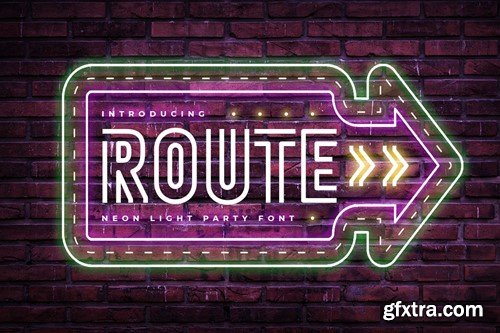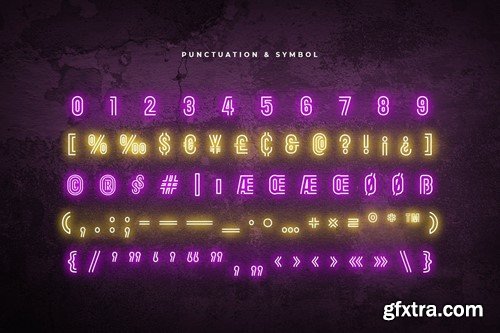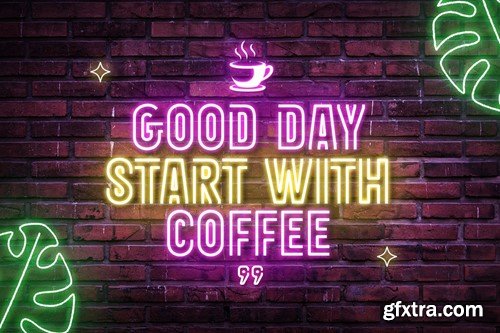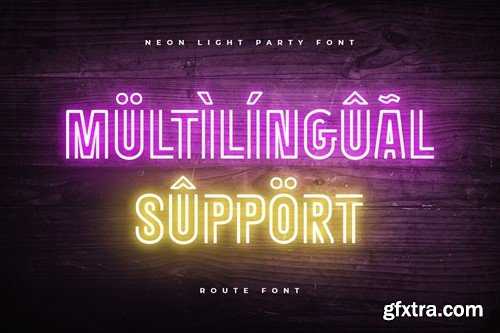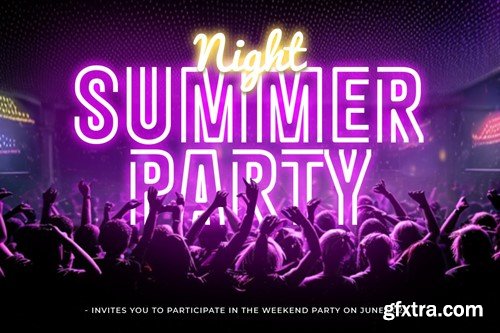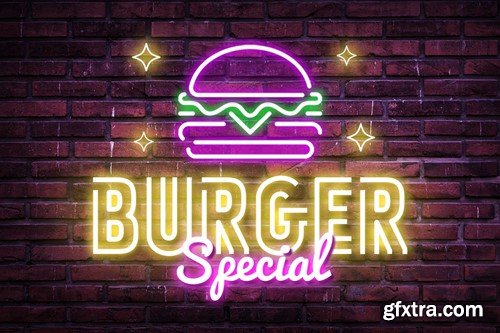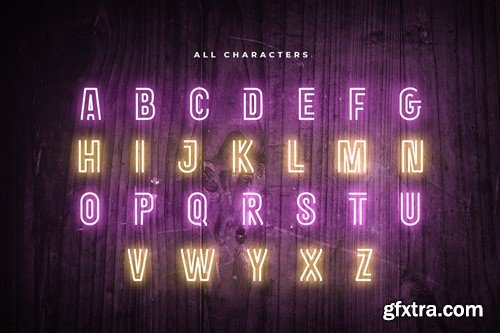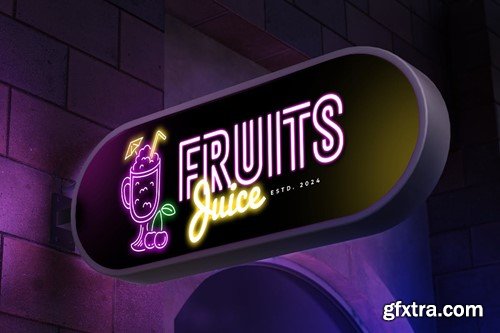
ROUTE - Neon Light Party Font 3JY9D5P
ROUTE - Neon Light Party Font
ROUTE is a Neon Light Party Font with inline shape make your design look unique and modern A new Display Font that we created special for Headline, Title and more stand out typography needs. It's so perfect to add your style and headline overview. And specially for this font, we crafted for unique style and modern feels so enjoy to create any project that will show your main idea out. ROUTE Neon Light Party Font ready with: Wish you enjoy our font. :)